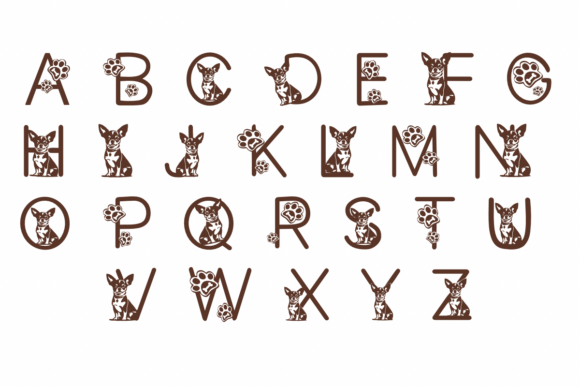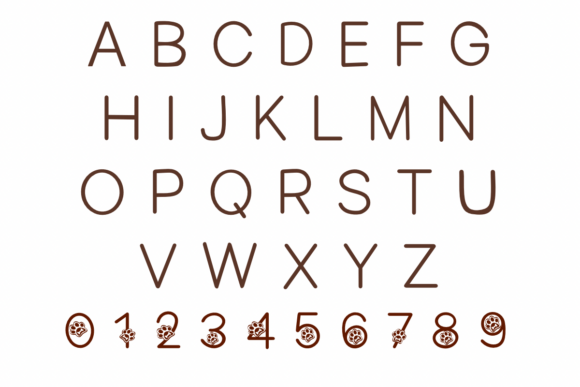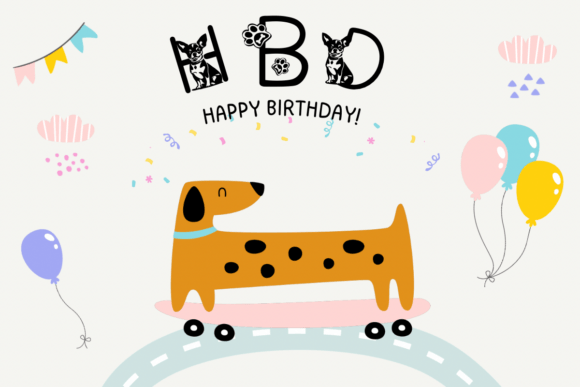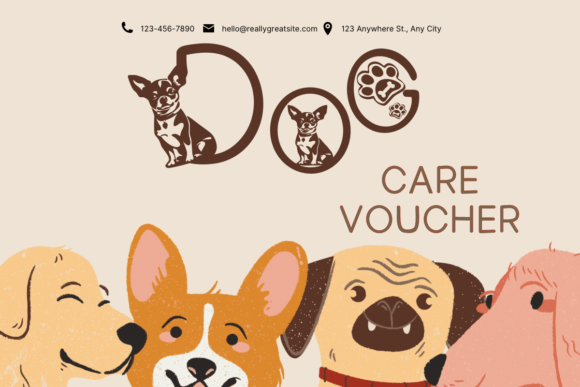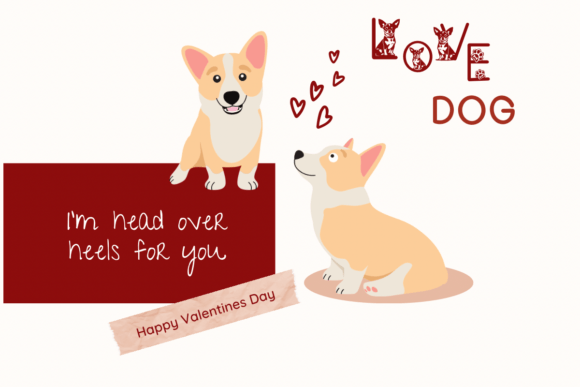
Introduction to It Dog Font
It Dog is an organic and beautiful decorative font, featuring lovely ornaments.
Key Features of It Dog Font
Why Choose It Dog Font?
It Dog Font offers exceptional quality and versatility, making it a valuable addition to your design toolkit. Whether you’re creating for personal projects or commercial use, It Dog Font delivers professional results.